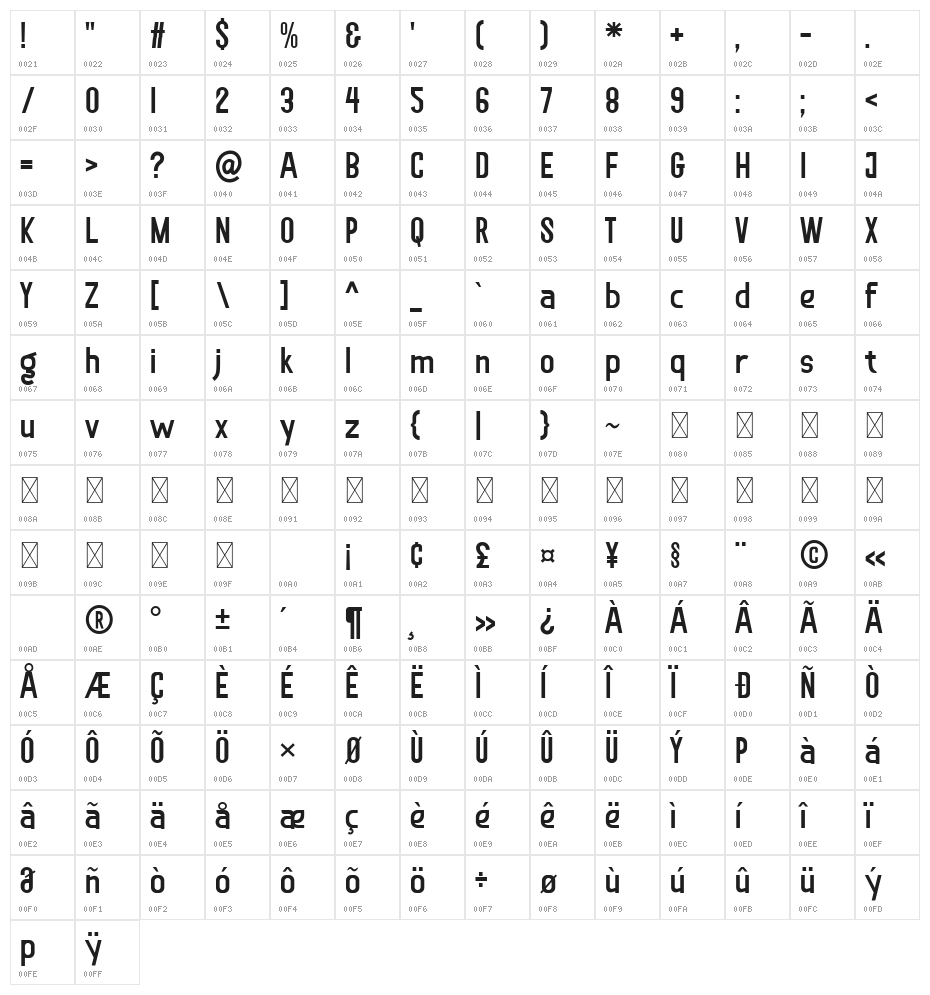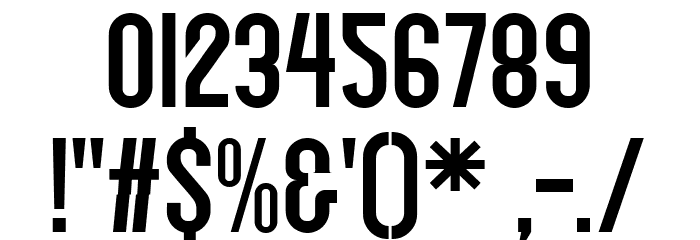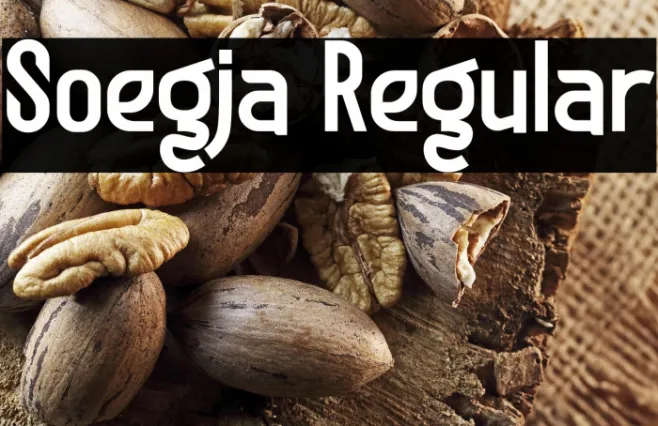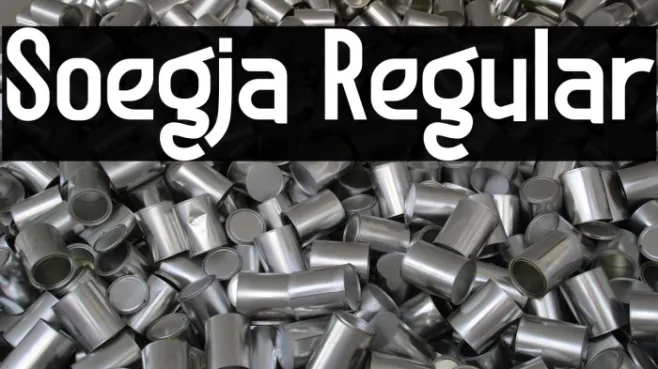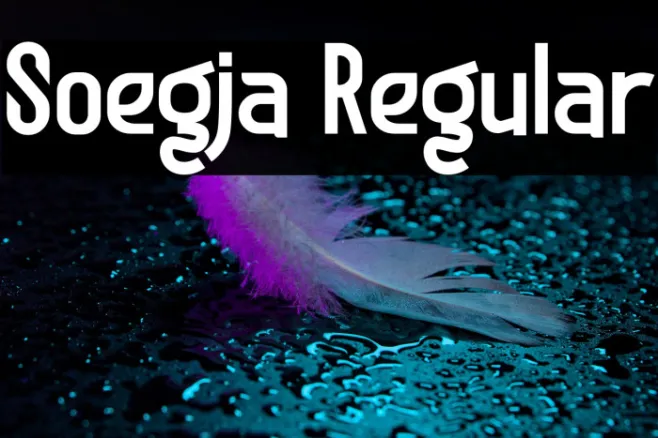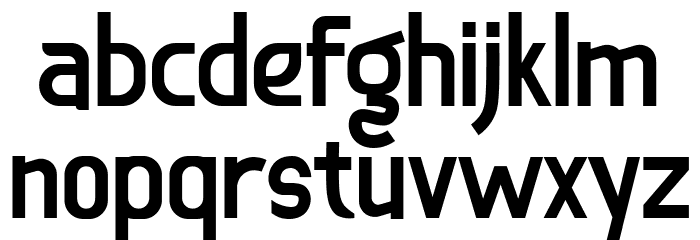
Soegja Regular Font
Soegja Regular Description
This font exhibits a bold and modern aesthetic with clean, geometric lines and a strong presence. The uppercase letters are tall and commanding, while the lowercase letters maintain a consistent style with slightly rounded edges that add a touch of softness. The numerals are clear and easy to read, matching the overall boldness of the alphabet. Special characters are well-integrated, maintaining the font's cohesive look. The font's design is versatile, suitable for various applications where a contemporary and assertive typeface is desired.
| Use Case | Headlines, Logos, Advertising |
| Proposed Projects | Ideal for branding, advertising, headlines, and digital media where a bold statement is needed. |